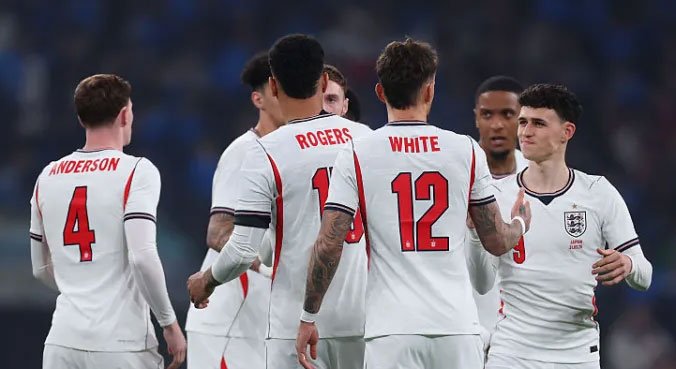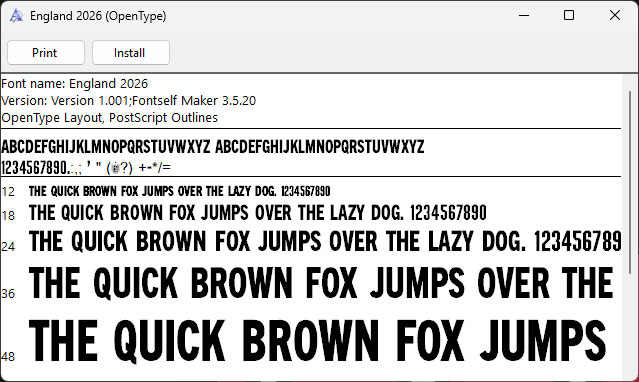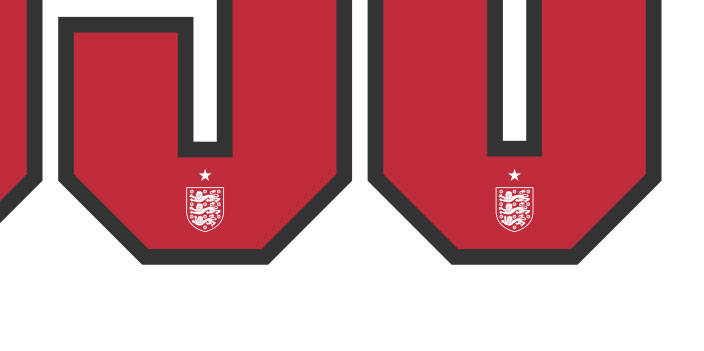
This is the England 2026 font. This is special font for their kit and it will be used in World Cup 2026.
We have font that you can use as England 2026 font which is general font with all plain letters and numbers (WITHOUT outline and Football Association logo in the bottom of numbers).
We also provide the font in vector file (eps) for more detail of dark outline and football association logo in the bottom of the numbers.